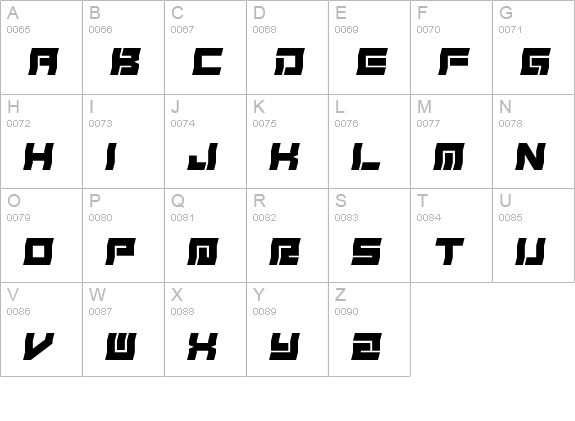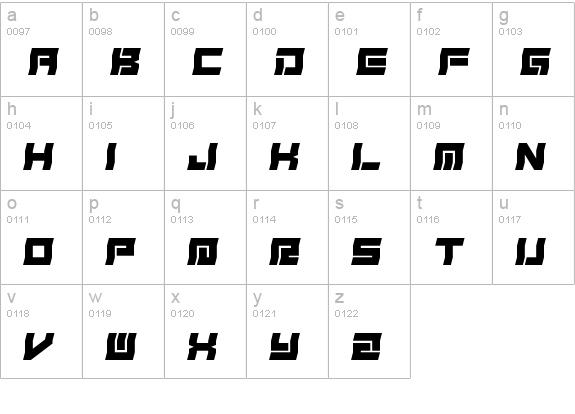
Freudian Slit Font Details
Freudian Slit font is a unique and eye-catching typeface that combines edgy and modern elements with a touch of elegance. Its sharp, angular design gives it a bold and sophisticated look, making it perfect for headlines, logos, and branding projects. This font is sure to make a statement and capture the attention of your audience. What sets Freudian Slit font apart is its subtle nod to Freudian psychology, with its sleek lines and intricate details symbolizing the complexity of the human mind. The font's distinctive style adds depth and character to any design, making it a versatile choice for a wide range of creative projects. The best part? Freudian Slit font is available for free download at FontsMarket.com. Whether you're a professional designer looking to add a unique touch to your work or a hobbyist seeking inspiration for your next project, this font is a must-have in your collection. Download Freudian Slit font today and unleash your creativity with this stunning typeface.